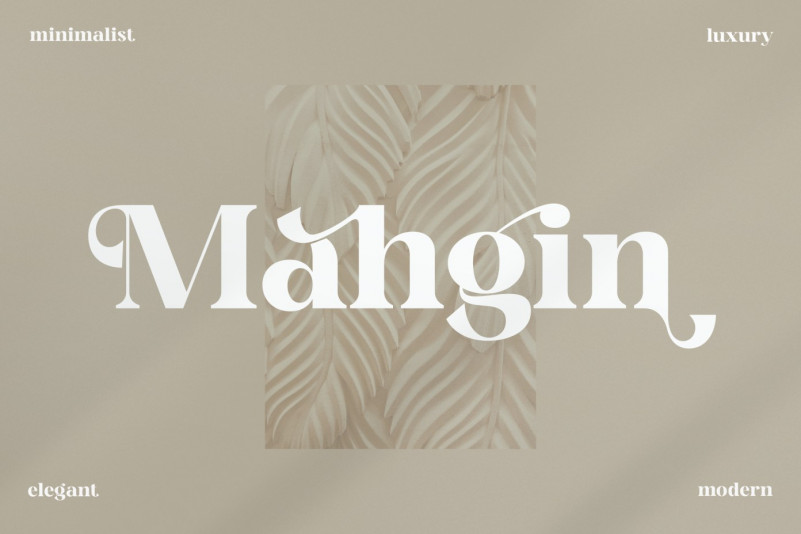
Mahgin Font
Mahgin is a bold and thick lettered serif font. Fall for its assertive style and use it to create distinct designs. This font is PUA encoded which means you can access all glyphs and swashes with ease!